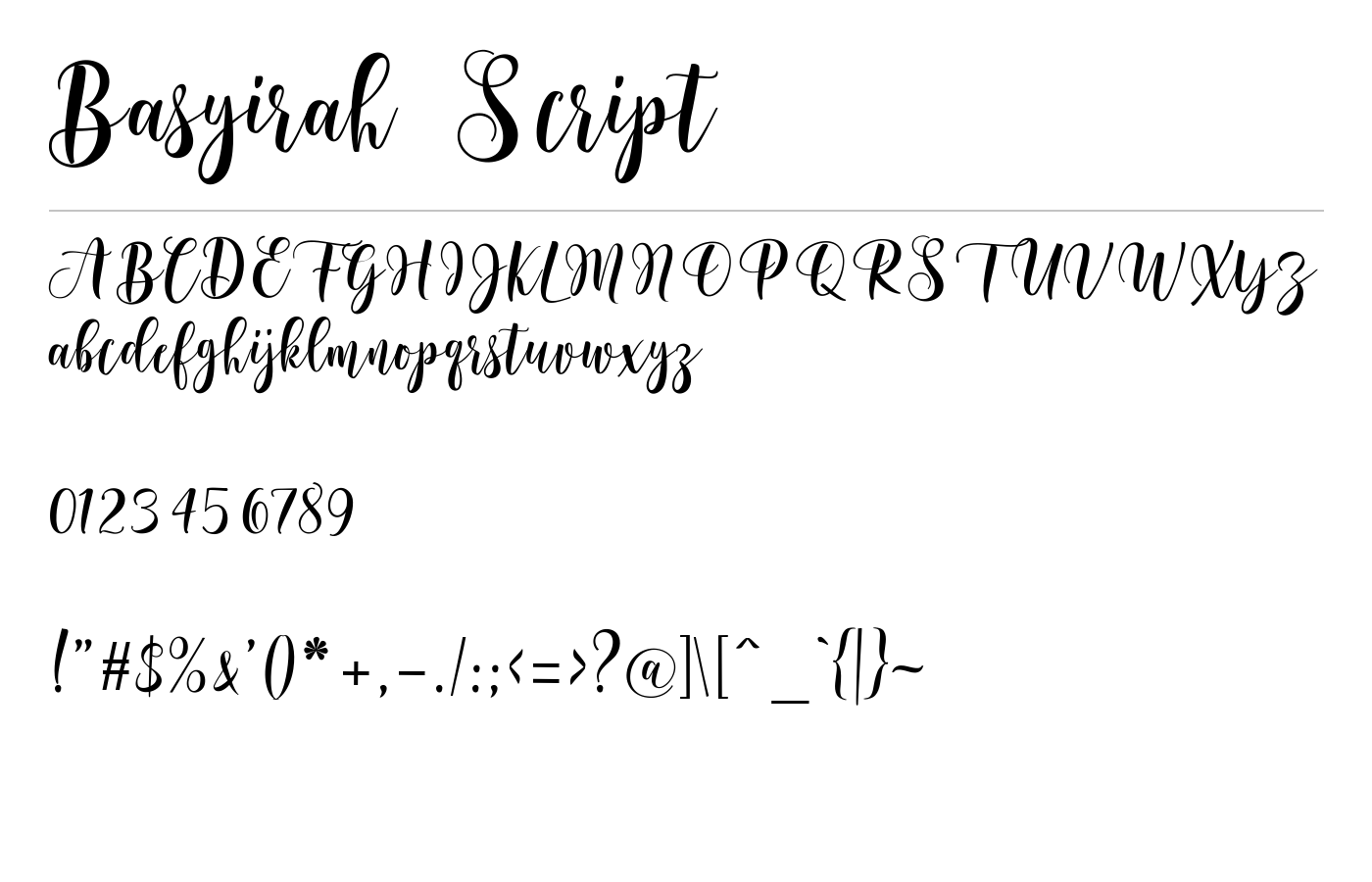
Basyirah Script is an elegant and flowing script font that combines delicate, refined strokes with a sense of graceful movement. Its high contrast between thick and thin lines, along with distinctive swashes and curls, give it a luxurious and sophisticated feel, making it perfect for use in invitations, branding, and upscale packaging. This font shines in decorative headlines and logos where a touch of charm and elegance is desired.
Basyirah Script Font
About Basyirah Script Font
| Font family | Basyirah Script Font |
| Designer | Zulfikar |